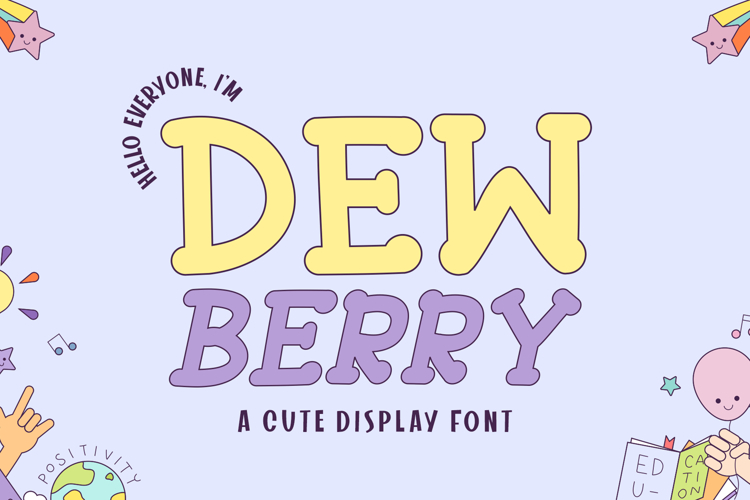
Dewberry - A Cute Display Font
ย Dewberry โ A Cute & Playful Display Font! โจ๐
Bring a touch of sweetness and charm to your designs with Dewberry! ๐ This thin and delicate display font is perfect for crafting adorable and whimsical projects. Whether youโre designing for childrenโs books, greeting cards, branding, or social media posts, Dewberry adds a fun and elegant vibe. Available in Regular & Italic, itโs a must-have for anyone who loves playful typography! ๐ธ
๐ Make your designs extra cute with Dewberry! ๐ธโจ